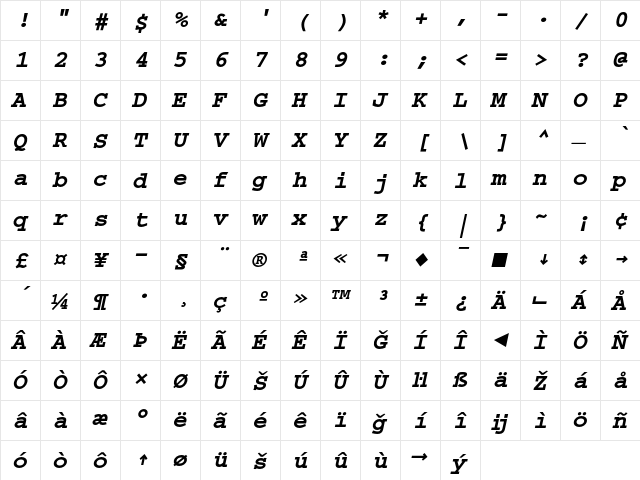
Courier Bold Oblique Font Preview
Design Context for Courier Typeface
Courier brings the precise, column-aligned rhythm of monospaced typography to designs that value technical clarity and systematic order. The dynamic lean of this cut emphasises speed and emphasis in any layout. Its bold stroke weight gives it real presence on the page.
Pro Tip: Use Courier with slightly increased line-height for extended reading — fixed-width spacing can feel dense in longer passages without extra breathing room.